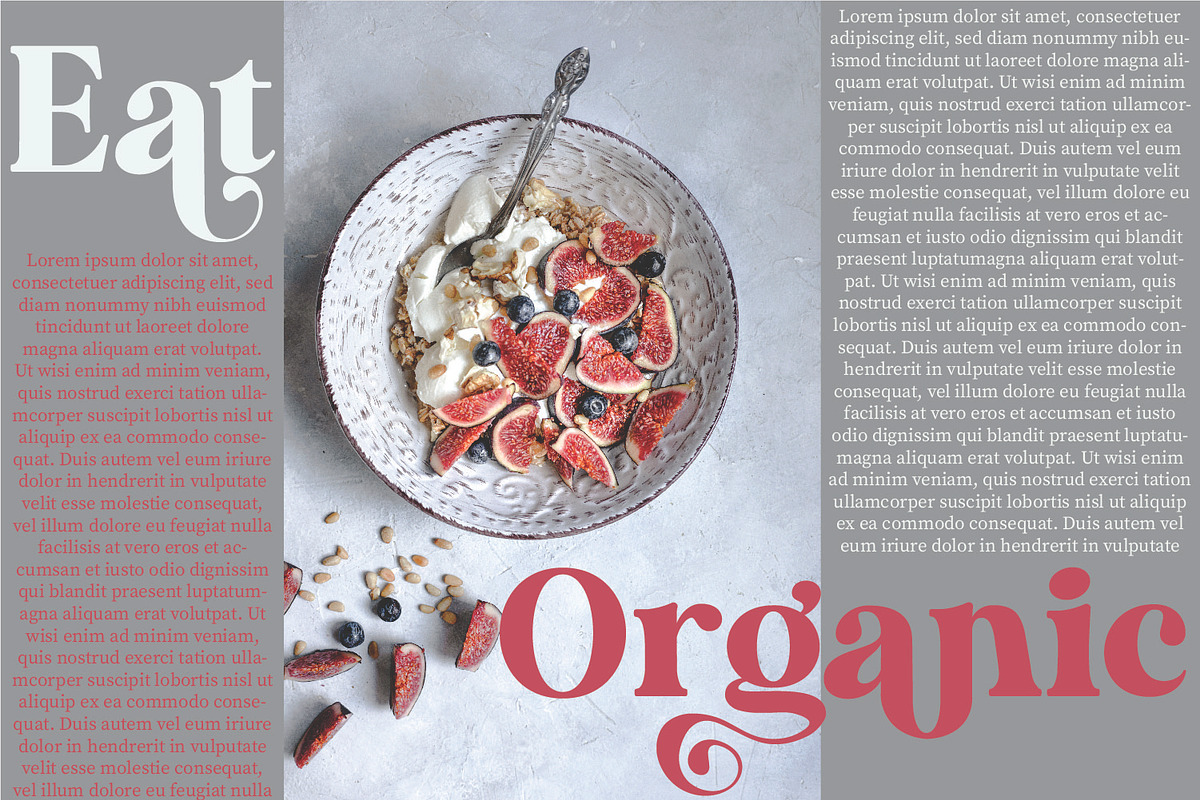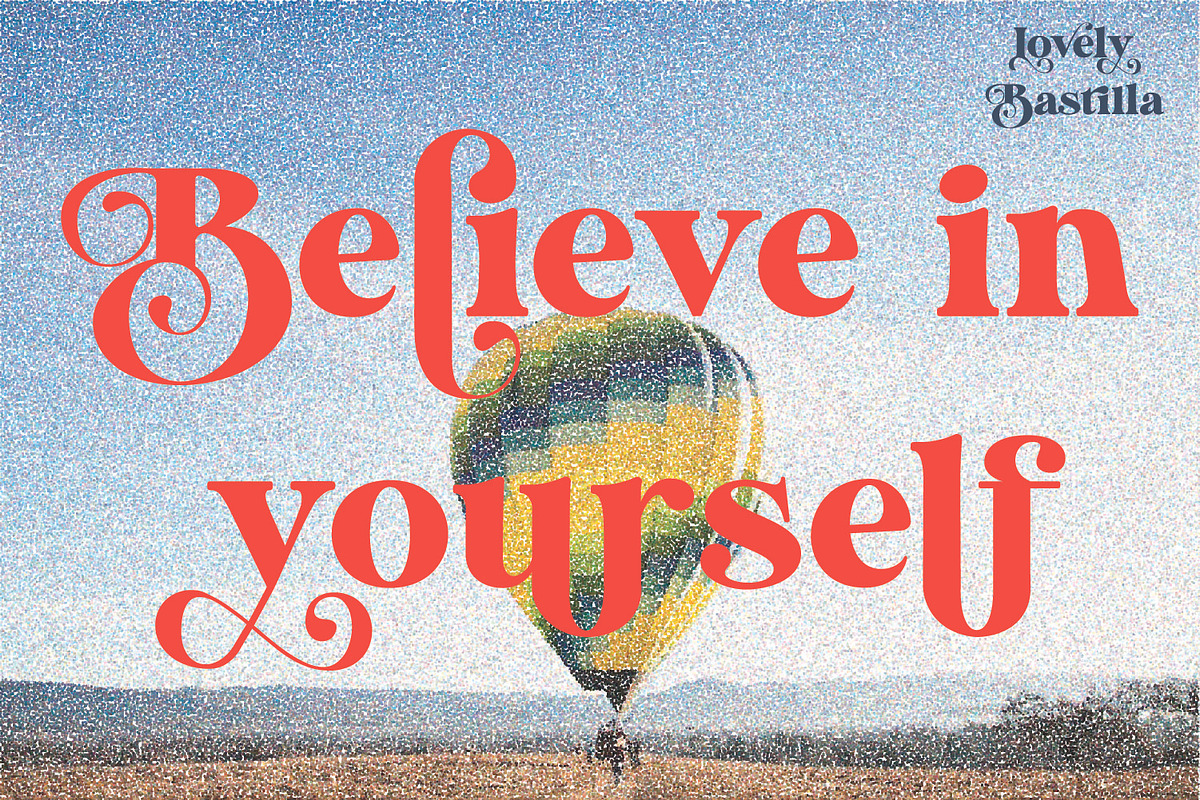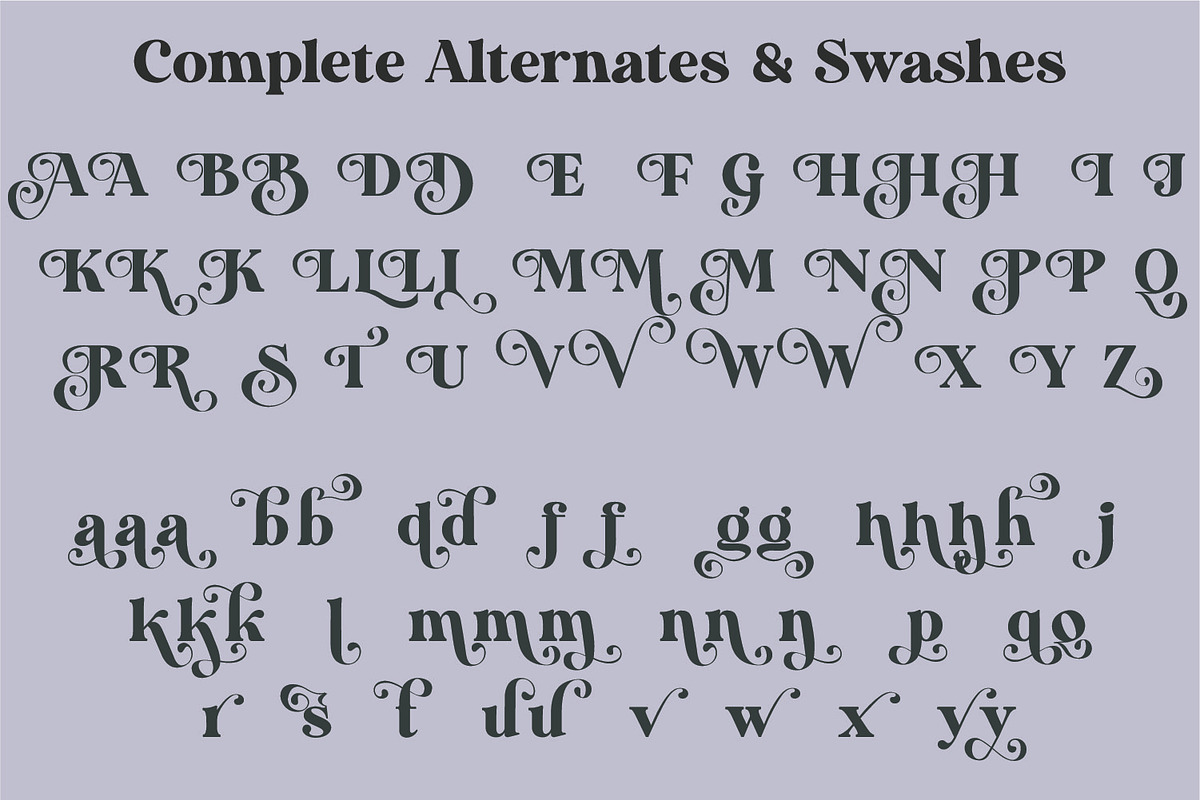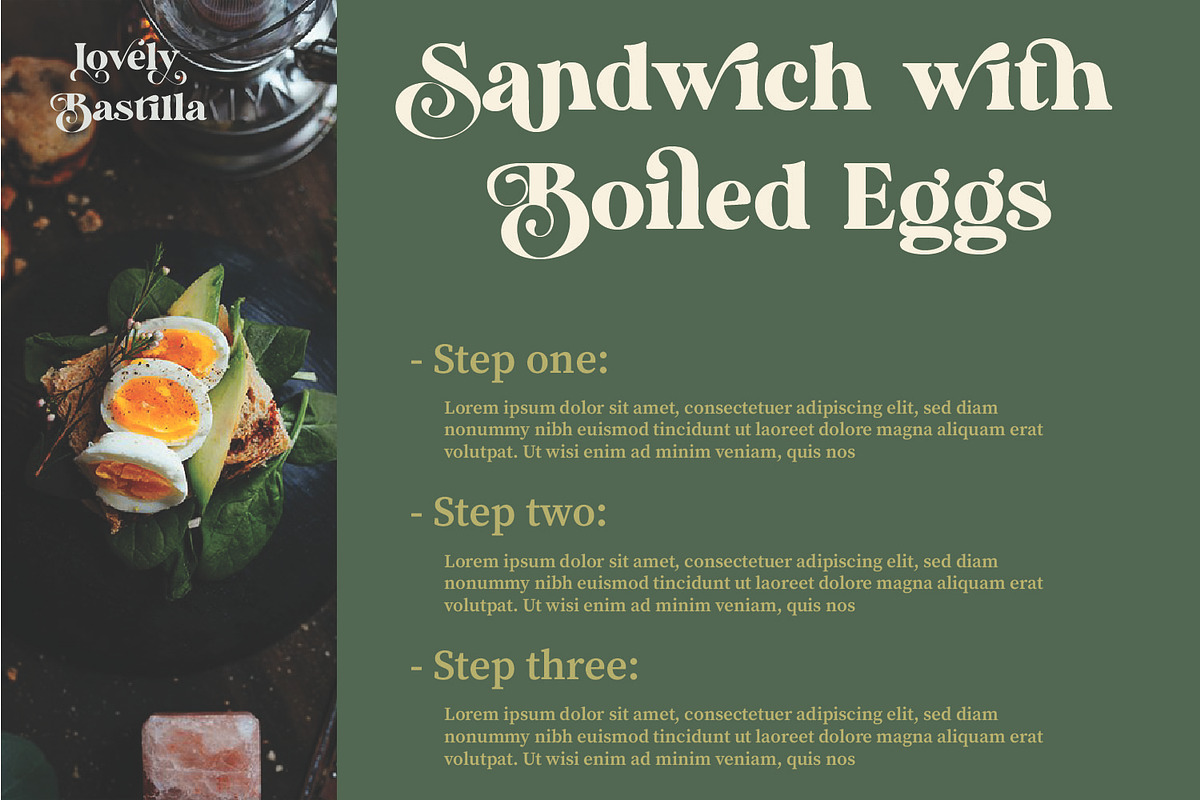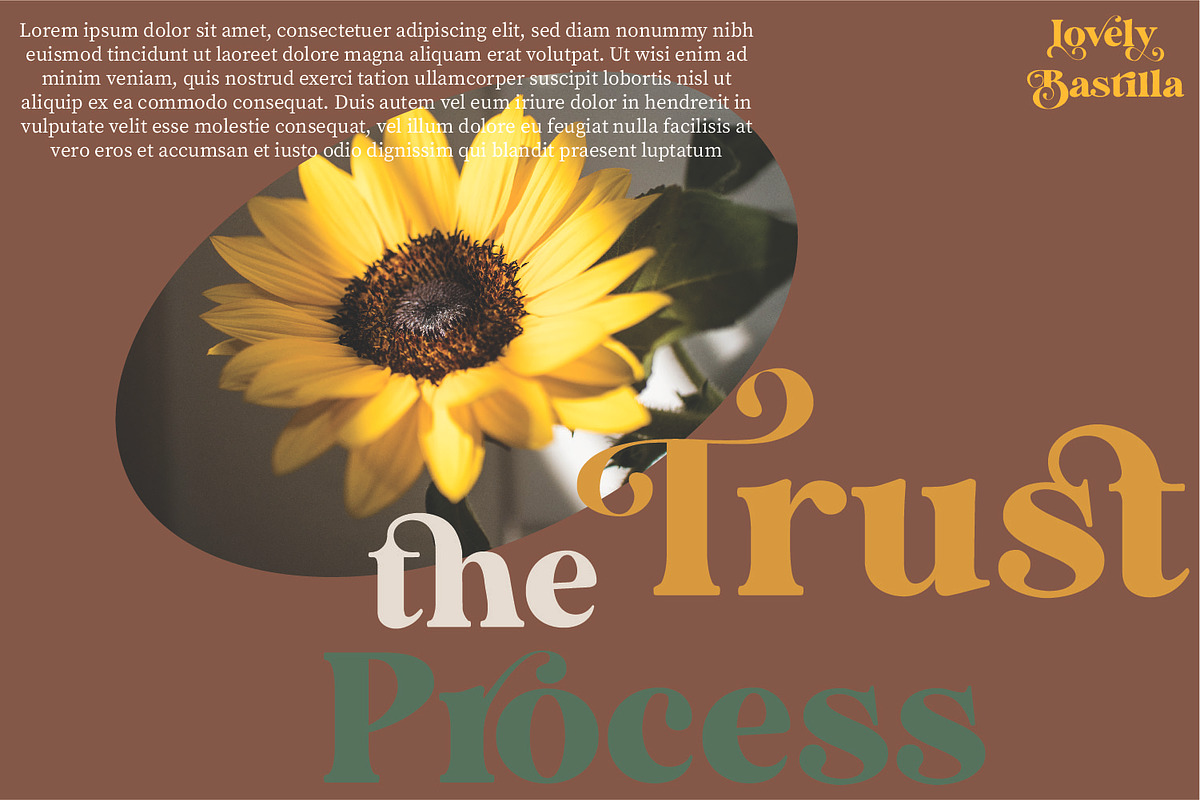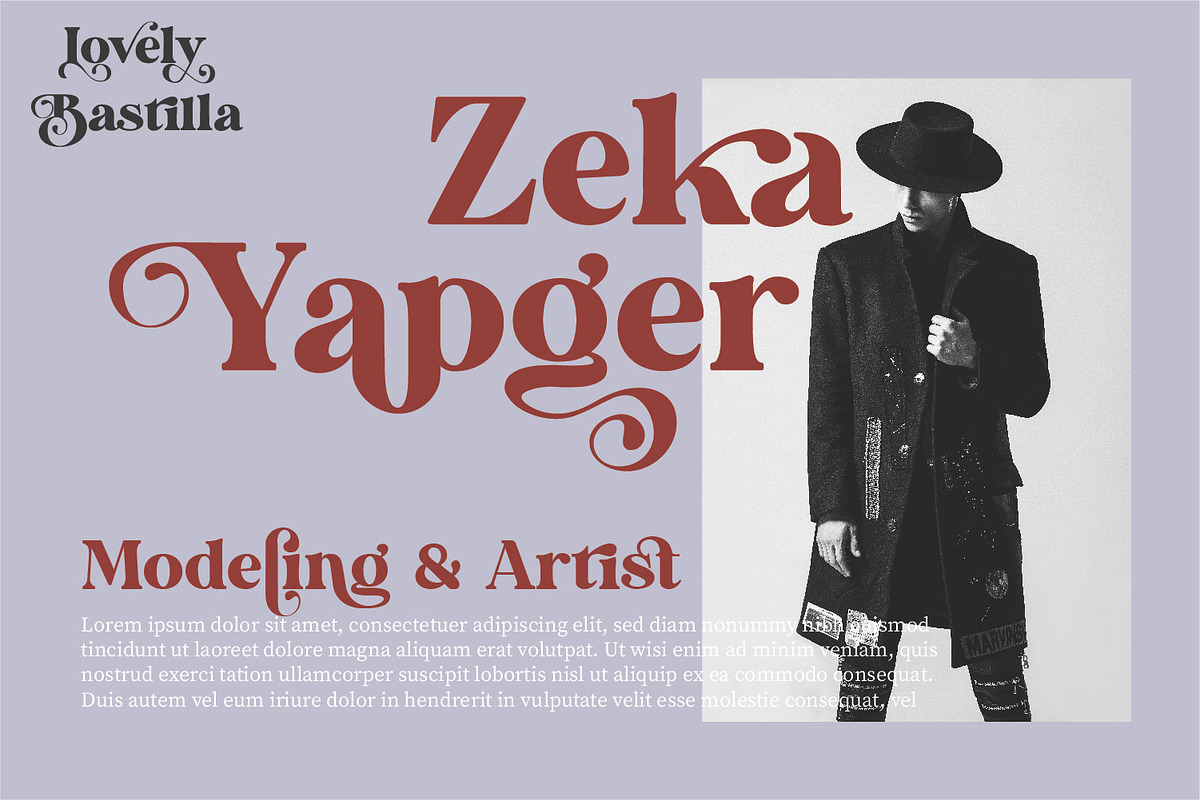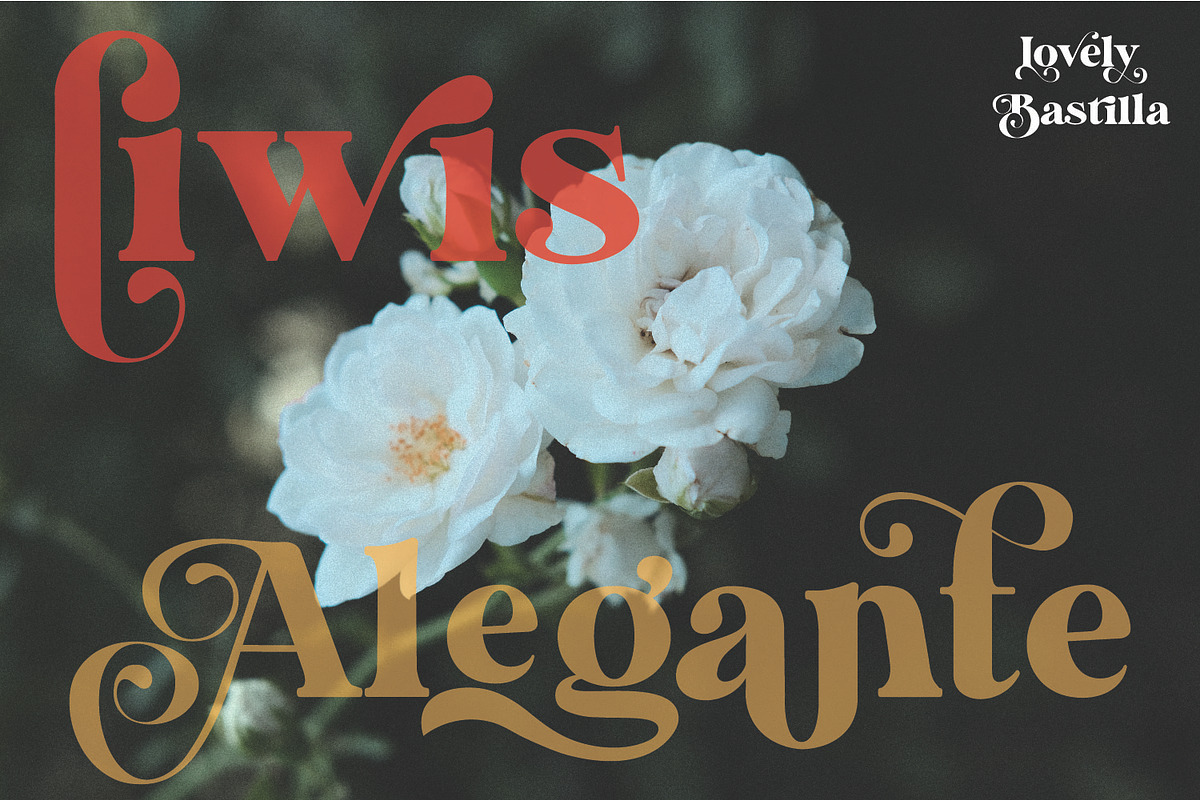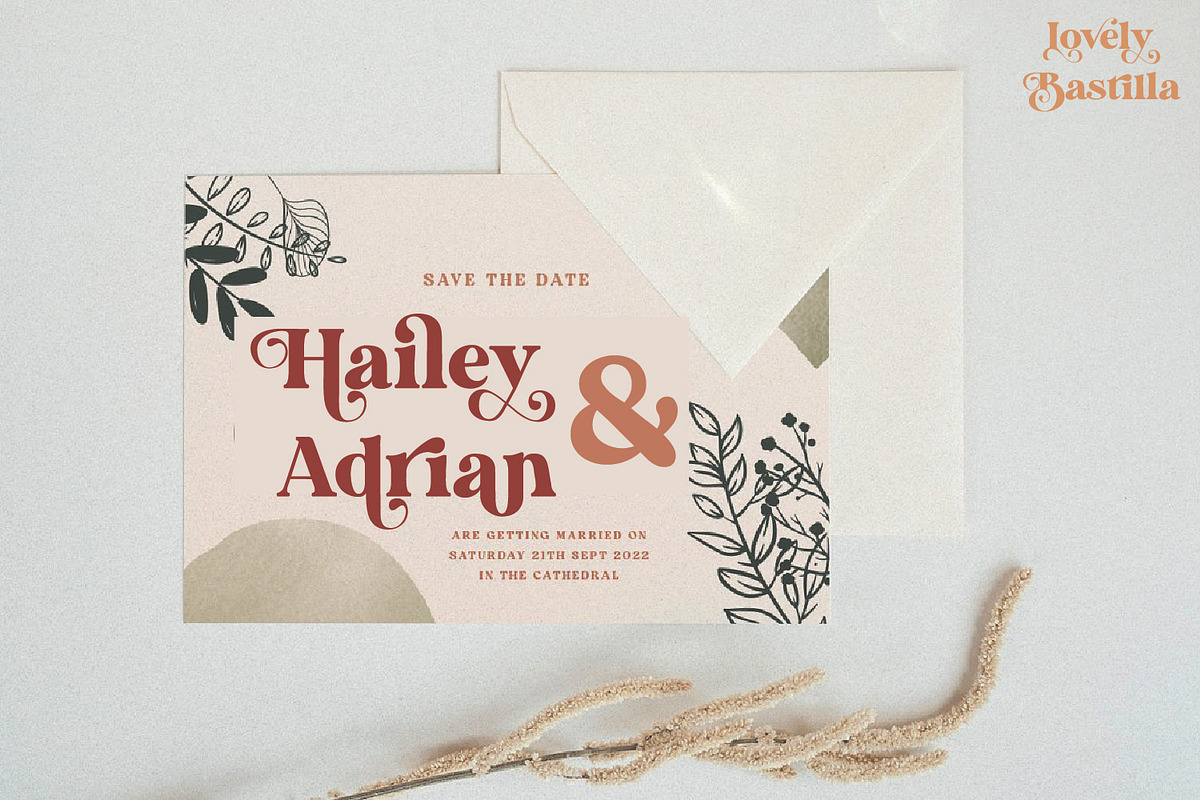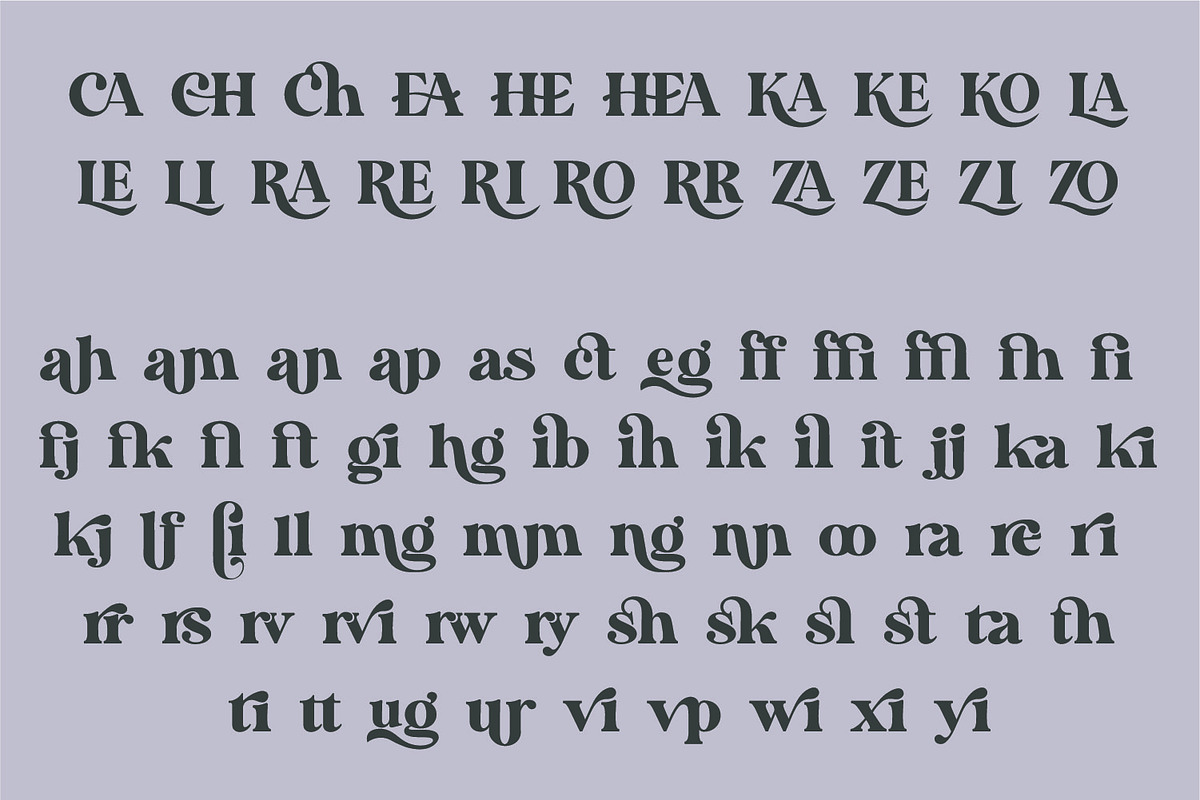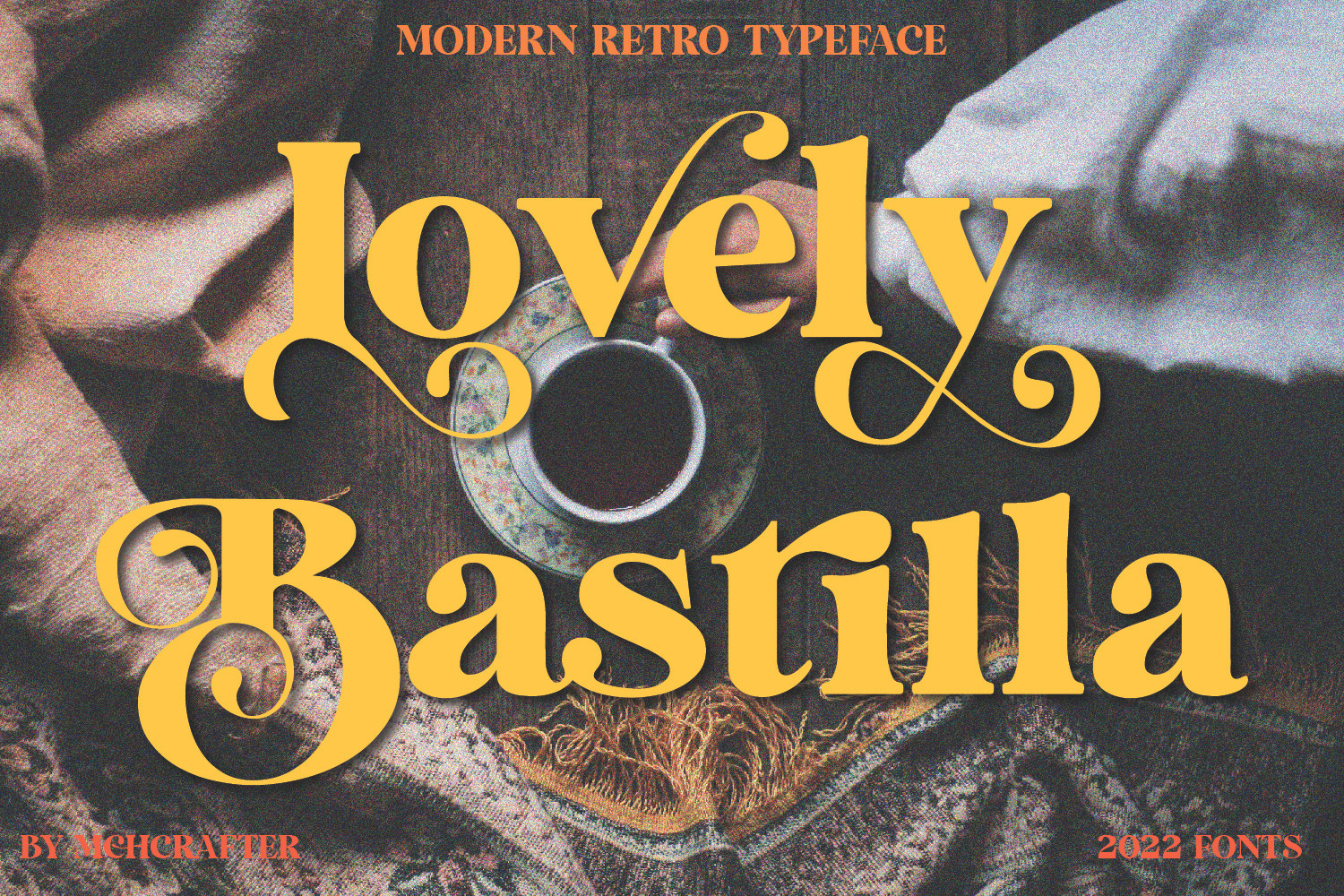
Lovely Bastilla | Retro Serif Font
Lovely Bastilla font is a Modern Stylistic Serif typeface
A new serif that we created specially for branding needs, with extra ligatures and alternates in a unique shape just to add value to your brand. It so nice to leverage designer or product owner that need solutions to make their design look more stylish and modern. And specially for Lovely Bastilla font, We prepared all the ligatures, and the alternates characters to help you create unlimited variations for your creative needs.